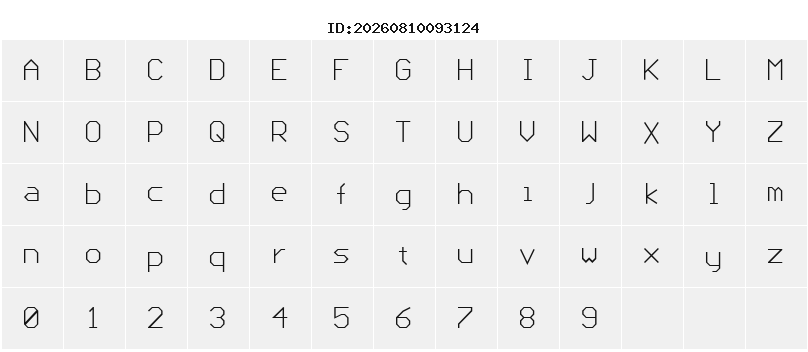
• Font Name: PCBius
• Designer: Aleksandar Krstic
About PCBius.ttf
PCBius.ttf is a modern, elegant sans-serif font designed for ultimate readability and visual harmony. Perfect for branding, headlines, web design, and print materials.